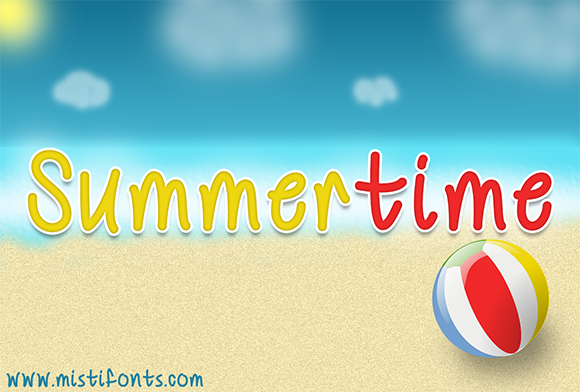
HomeScript FontsSummertime Font Script Fonts Summertime Font FacebookXPinterestWhatsApp About Summertime Font Mf Summertime is a warm and sunny handwritten font that is perfect for your craft and design projects! DOWNLOAD NOW People also explored Music Stars Font Quilla Font Bumalika Font Sweetheart Font Rabitta Font Aventra Font Famous Font Rosekiller Font Moonlight Font 259 0 TagsSummertime Font Previous articleLove and Trust FontNext articleReally Awesome Font LEAVE A REPLY Cancel reply Comment: Please enter your comment! Name:* Please enter your name here Email:* You have entered an incorrect email address! Please enter your email address here Website: Save my name, email, and website in this browser for the next time I comment. Personal Use Free BD Nokio Personal Use Free Read more about this font Wintersoul Personal Use Free Read more about this font Rembank Personal Use Free Read more about this font Thruster Personal Use Free Read more about this font BLOG How to Install and Use Fonts on Windows, macOS, and Web Projects How to Install and Use Fonts on Windows, macOS, and Web Projects Fonts are a crucial part of design and branding. Whether you’re designing a... Using Fonts in Digital Marketing: Tips to Strengthen Your Brand Identity Best Fonts for YouTube Videos: Make Your Thumbnails Stand Out Fonts That Capture the Spirit of New York City